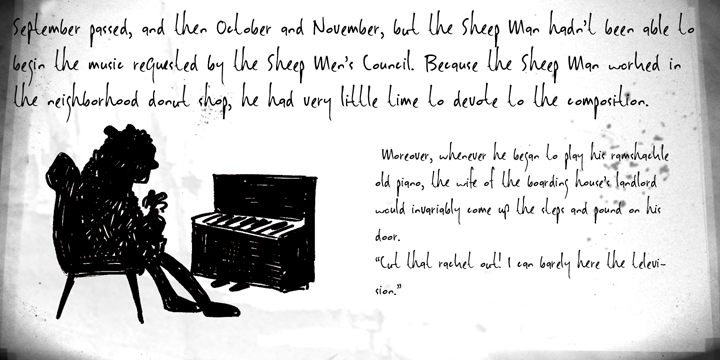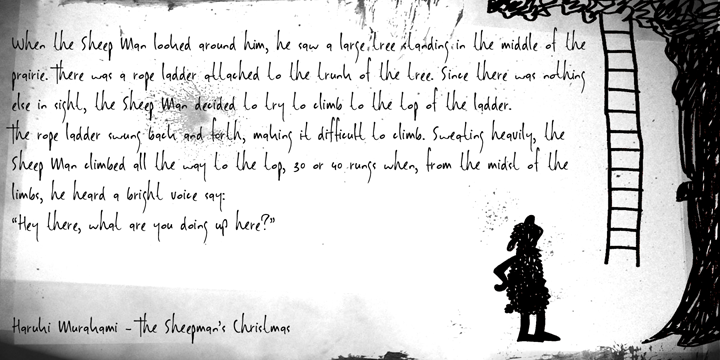
Sheepman is a hand drawn font family. This typeface has three styles and was published by Hanoded.
Sheepman font was named after my favorite Haruki Murakami character: the Sheep Man. Sheepman font is handwritten, messy, but legible and complete. It comes with alternates and ligatures.